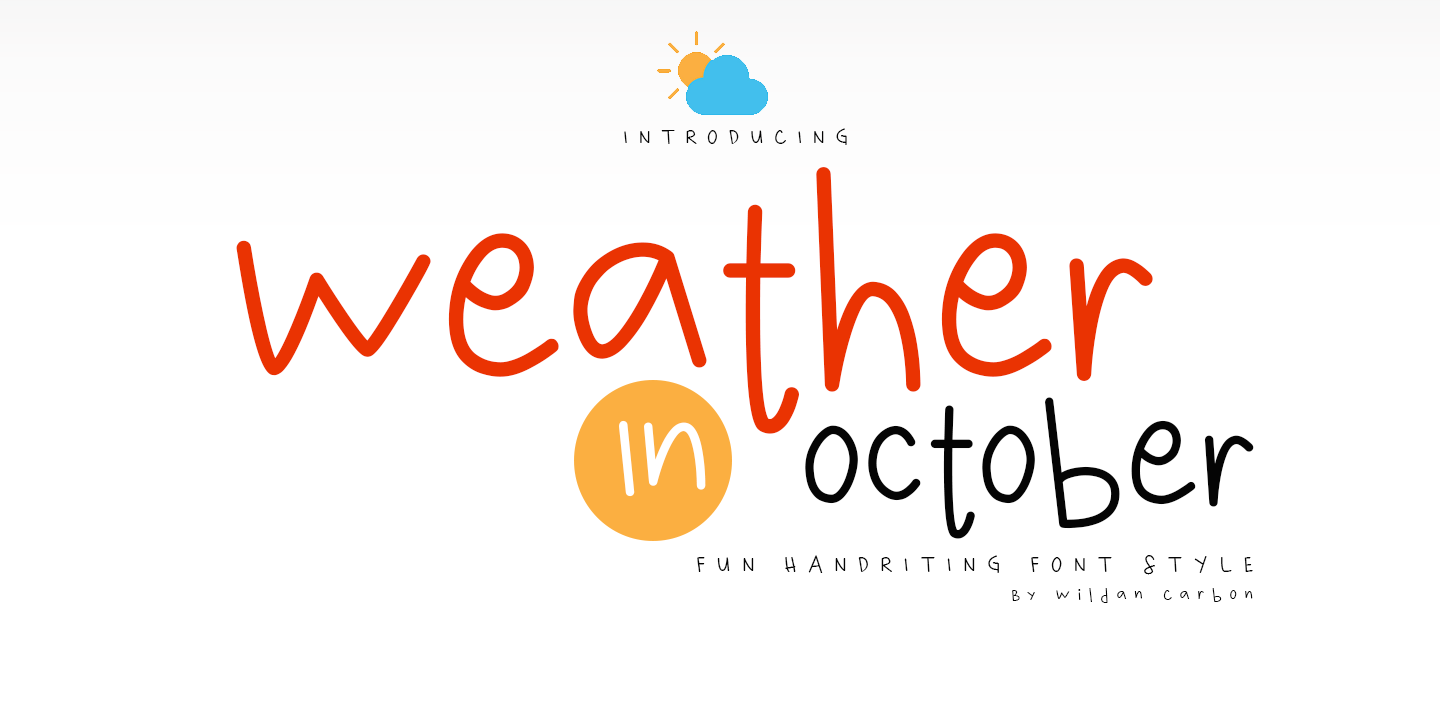
Weather In October Font is perfect for seasonal campaigns, autumn-themed designs, magazine layouts, book covers, poetry collections, nature photography overlays, cozy branding projects, fall wedding invitations, weather applications, and atmospheric design compositions that require an organic touch.
What makes Weather In October Font exciting is its ability to capture the essence of autumn's transitional beauty and melancholic charm. This sophisticated typeface embodies the crisp, contemplative mood of October weather with its elegant curves and natural flow. The font's organic character brings warmth and authenticity to designs, creating an emotional connection that resonates with viewers on a deeper level.
The Weather In October Font family includes light, regular, and medium weights, along with italic variations that enhance the font's expressive qualities. Special contextual alternates and ligatures provide natural letter connections, while seasonal ornaments and weather-inspired symbols complement the main typeface perfectly.
Weather In October Font Free Download delivers exceptional versatility for both digital and print applications. Its carefully balanced letterforms ensure optimal readability while maintaining the font's distinctive atmospheric personality. The typeface works beautifully in editorial contexts, creative campaigns, and brand identities that seek to convey authenticity and seasonal sophistication.
Transform your designs with the evocative power of Weather In October Font and create compelling visual narratives that capture the essence of autumn's most beautiful moments.